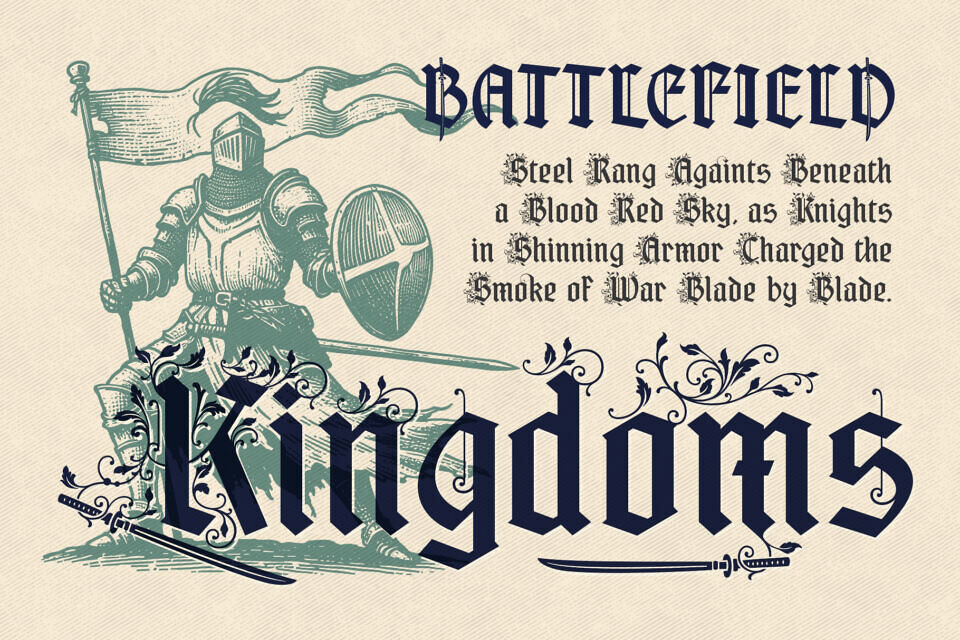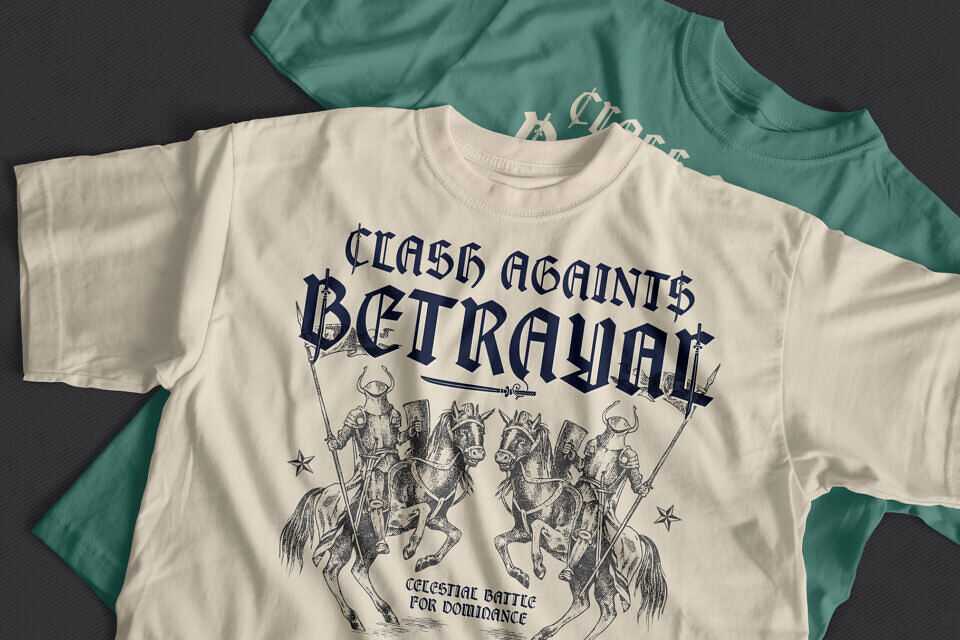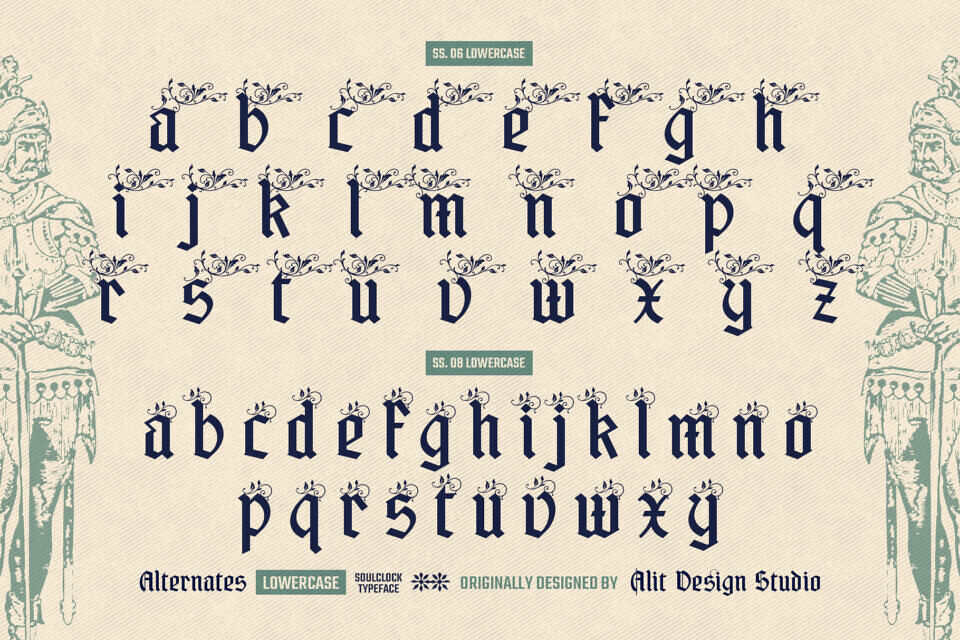
Soul Clock Font
Introducing Soul Clock Typeface, a stunning ornamental blackletter font that blends the timeless mystique of classic Gothic script with the flowing grace of nature-inspired embellishments. Originally crafted by Alit Design Studio, Soul
Clock is not just a typeface; it’s a design experience, built to evoke the emotion and artistry of medieval calligraphy and Baroque decor.
Soul Clock draws its inspiration from vintage manuscript lettering, embellished with floral swashes and dramatic ligatures. Each character is meticulously designed with intricate vine-like flourishes, giving the typeface a majestic and organic appearance. The result is a beautiful fusion of sharp, angular blackletter structure softened by decorative botanical details — perfect for projects that demand both authority and artistic expression.